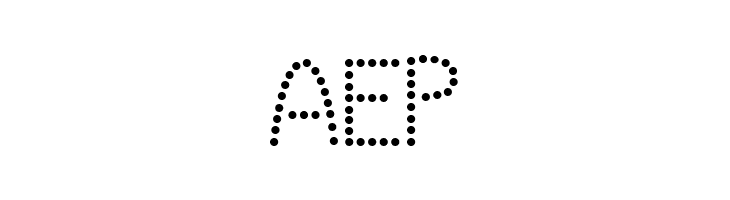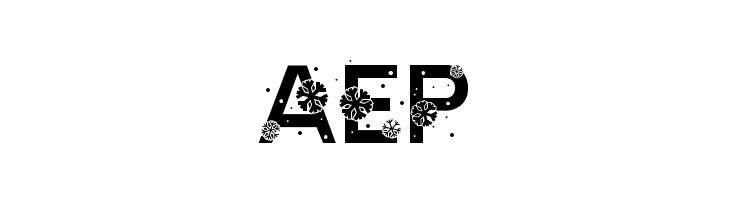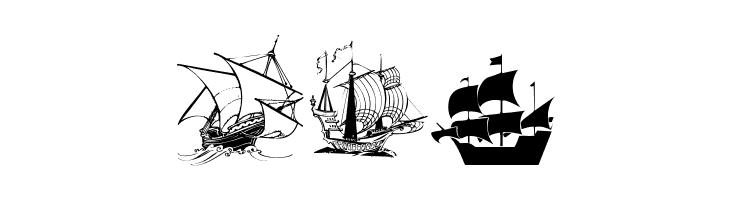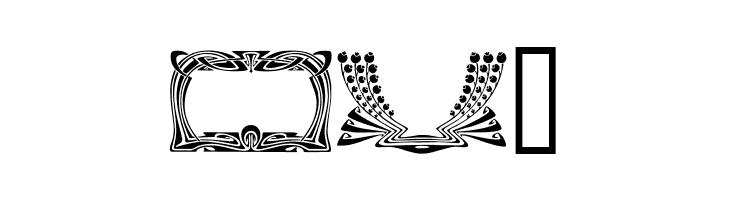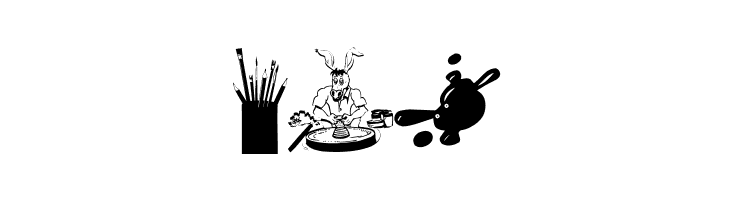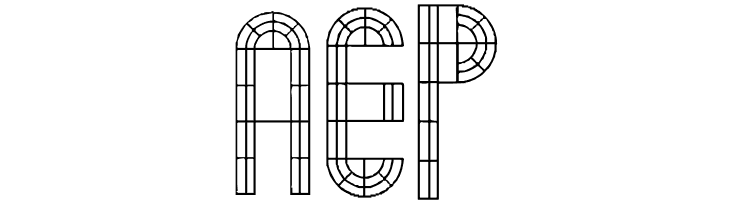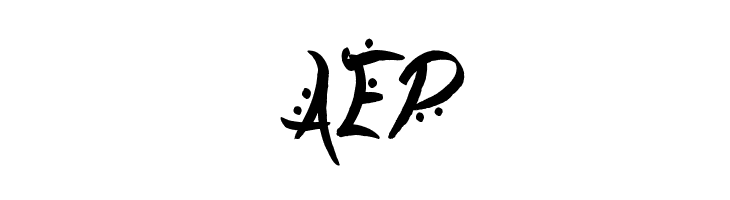
An artistic, calligraphic font with decorative elements and bold strokes.
A bold, geometric font with solid shapes and intricate negative space patterns.
A modern sans-serif font with geometric shapes and uniform strokes.
A bold, modern font with thick strokes and a strong presence.
A bold, italicized font with thick strokes and dynamic slant.
A bold, modern sans-serif font with clean, geometric lines.
A bold and italic font with a modern, dynamic style.
A bold, modern typeface with thick strokes and excellent legibility.
A bold, italic font with a modern and dynamic style.
A modern, extra-light sans-serif font with geometric shapes and smooth curves.
A sleek, modern italic font with a light weight and elegant style.
A modern, italic sans-serif font with clean lines and a dynamic style.
A clean, modern font with a minimalist and uniform design.
A sleek, modern, light italic font with smooth curves and balanced spacing.
A modern sans-serif font with clean lines and balanced proportions.
A modern, italic sans-serif font with medium weight and normal spacing.
A modern, semi-bold sans-serif font with clean lines and balanced proportions.
A modern, semi-bold italic font with medium contrast and a sleek design.
A sleek, modern font with thin lines and balanced spacing.
A sleek, thin, and italicized font with a modern and minimalist design.
A playful, rounded font with consistent stroke width and smooth curves.
A modern, sleek font with elongated, narrow characters and a minimalist aesthetic.
Festive sans-serif font with snowflake decorations for holiday themes.
A maritime-themed decorative dingbat font with pirate ships and nautical icons.